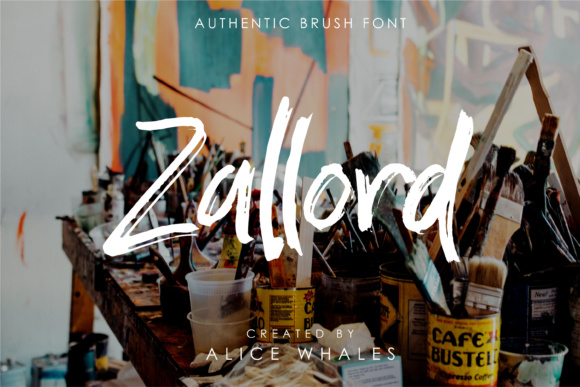
Prepare to be captivated by Zallord, a masterpiece of script fonts that will infuse your designs with an alluring touch of elegance. Its strokes, meticulously crafted by the artistic hands of NendesKombet, exude a subtle hint of audacity, making it an ideal choice for captivating displays in the realm of digital media.
Zallord's distinctive character shines through in its every curve and flourish. Its brush-like texture adds a touch of organic charm, evoking a sense of authenticity and warmth. Unleash your creativity and let Zallord guide you in crafting designs that resonate with your audience.
Embrace the power of Zallord and elevate your designs to new heights. Its versatility extends far and wide, making it the perfect companion for a myriad of projects. From digital branding to social media campaigns, Zallord has the versatility to transform your vision into a reality.
Indulge in the allure of Zallord and experience the transformative power of a font that speaks volumes. Its captivating presence will leave an unforgettable mark on your audience, ensuring that your message resonates with impact and style.